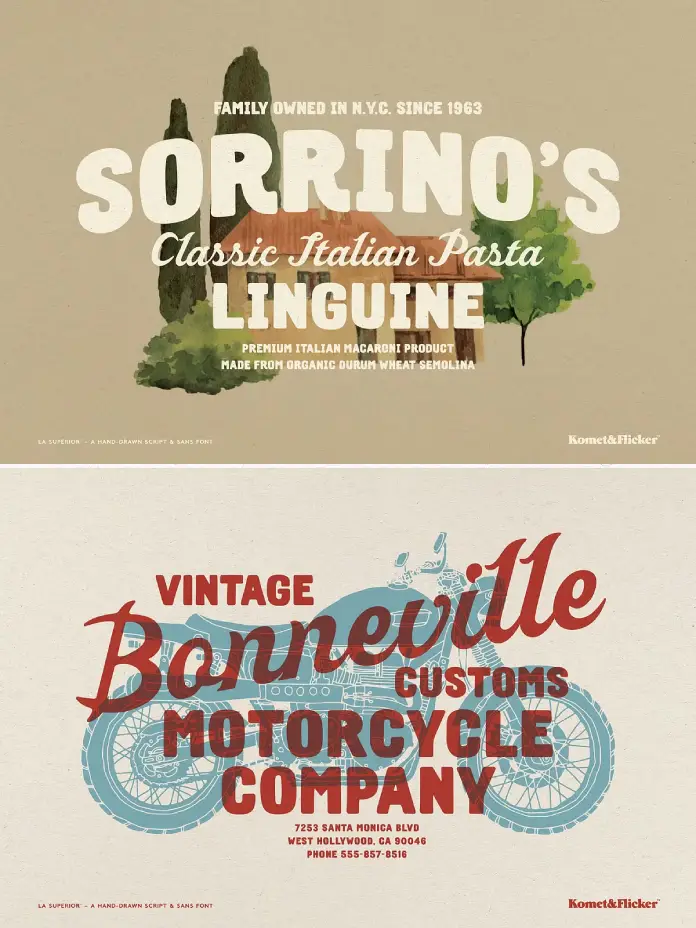
What Defines the La Superior Font as a Masterpiece of Vernacular Digitalism?
Perfection often feels sterile in the realm of digital typography. Designers constantly seek tools that bridge the gap between vector precision and human error. The La Superior font trio successfully occupies this specific space. Komet & Flicker created this hand-drawn font trio to capture the raw energy of street signage. Specifically, the design draws heavy inspiration from hand-painted Mexican taqueria wall lettering. It channels bold, imperfect beauty directly into your digital toolkit. This article examines why these typefaces represent a shift toward “Vernacular Digitalism.” We will explore its unique mechanics, its aesthetic frameworks, and its practical applications.
Why Does Authentic Signage Matter in a Digital Landscape?
You might wonder why imperfections hold such high value today. The answer lies in the concept of Taqueria Realism. This framework suggests that credibility comes from the visible hand of the maker. The La Superior font trio embodies this philosophy perfectly. It rejects the clean lines of corporate branding in favor of warmth and character. Consequently, audiences trust the message more because it feels human and approachable.
Modern consumers crave authenticity over polish. Therefore, designers use the La Superior font trio to signal approachability and organic origins. Unlike standard sans serifs, this typeface carries a narrative weight. It implies a story of heritage, food, and street culture. Furthermore, the font balances expressiveness with everyday usability. It functions as a tool for storytelling rather than just a vessel for data.
The Component Architecture of the Trio
Understanding the structure of this trio is essential for effective usage. The La Superior font trio operates as a cohesive system. The trio consists of an expressive script and two sans versions. These sans styles come in regular and italic. Komet & Flicker designed all three to complement each other flawlessly.
This “Triadic Balance of Grit” ensures versatility across various media. You can use the script for emotional headlines. Simultaneously, the sans versions handle the informational load without breaking the visual spell. Each style carries the distinct texture of a brush dragging across a wall. Thus, the La Superior font trio maintains a consistent voice even when mixing styles.
How Do Custom Connectors Elevate the La Superior Font?
A major challenge with digital brush fonts is the lack of natural flow. Standard fonts often look disjointed. However, the La Superior font trio solves this through “Semantic Ligatures.” The sans versions include a special set of 11 connecting words. These include common linkers like AND, THE, and WITH.
These custom connectors allow phrases to link naturally. Consequently, the text flows like real sign work. These glyphs add authenticity and rhythm to your layout. They work especially well in headlines and short lines of text. Visually, they mimic the distinct keystrokes of a sign painter connecting thoughts on a menu board.
Accessing the Hidden Glyphs
Designers who ignore these connectors miss the point of the typeface. The magic lies in these small details. Therefore, utilizing the connecting word glyphs changes a standard design into a bespoke piece of art. It creates the illusion of custom lettering without the hourly cost of a calligrapher.
What Constitutes the Character Set of La Superior Script?
We must look at the technical specifications to understand the tool’s depth. The script component of the La Superior font trio is robust. It includes a full A-Z upper and lowercase set of basic Latin characters. This allows for diverse sentence structures without repetition fatigue.
Additionally, the script supports select European-specific characters. This expands the utility for international projects. It also includes numbers, punctuation, and select symbols. A set of pre-made common fractions further enhances its utility for menu design. This specific inclusion proves that Komet & Flicker built this font with food service in mind.
Analyzing the Sans Character Set
The sans versions offer a different but equally important utility. The sans includes full A-Z uppercase basic Latin characters. Note that the uppercase focus mimics traditional signage conventions. Sign painters often use uppercase for legibility on street walls.
Like the script, the sans versions support select European-specific characters. They also feature numbers, punctuation, and select symbols. The set of pre-made common fractions appears here as well. However, the crown jewels are the set of 11 custom connecting word glyphs. These elements make the La Superior sans versions uniquely flexible for logo design.
Where Should You Deploy the Hand-Drawn La Superior Font Trio?
Who designed the La Superior font?
Komet & Flicker designed the La Superior font trio. They focused on capturing the bold, imperfect beauty of hand-painted signs. Their goal was to balance expressiveness with the technical requirements of modern digital design.